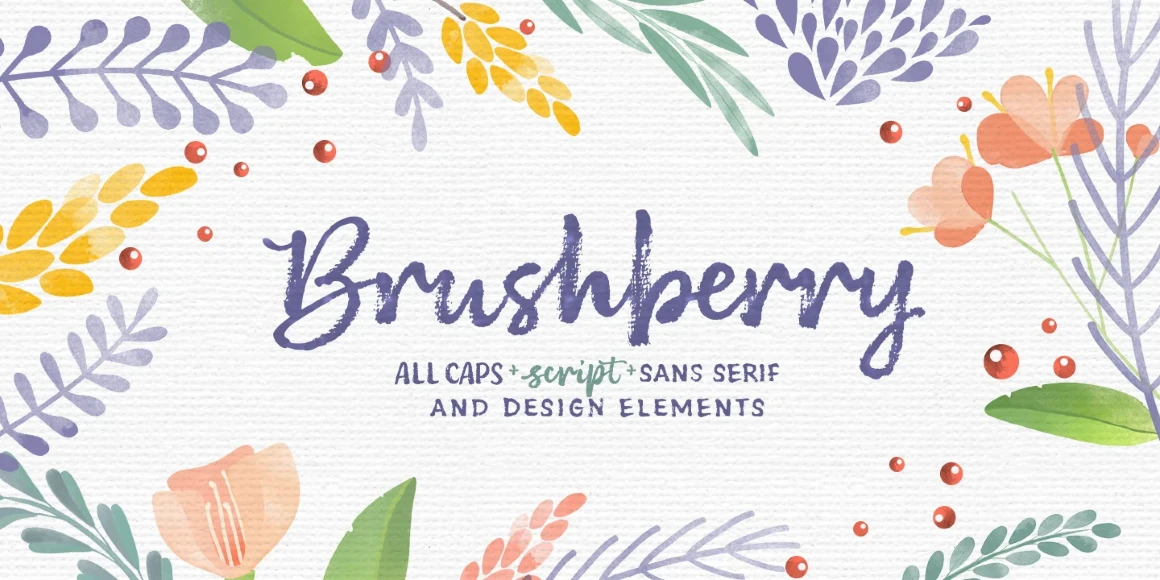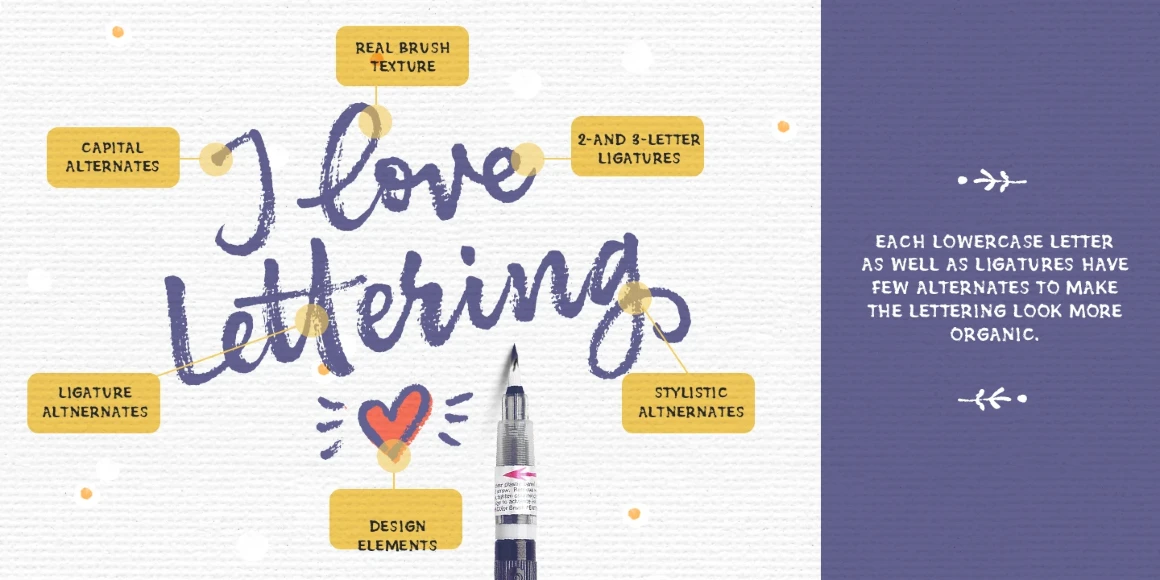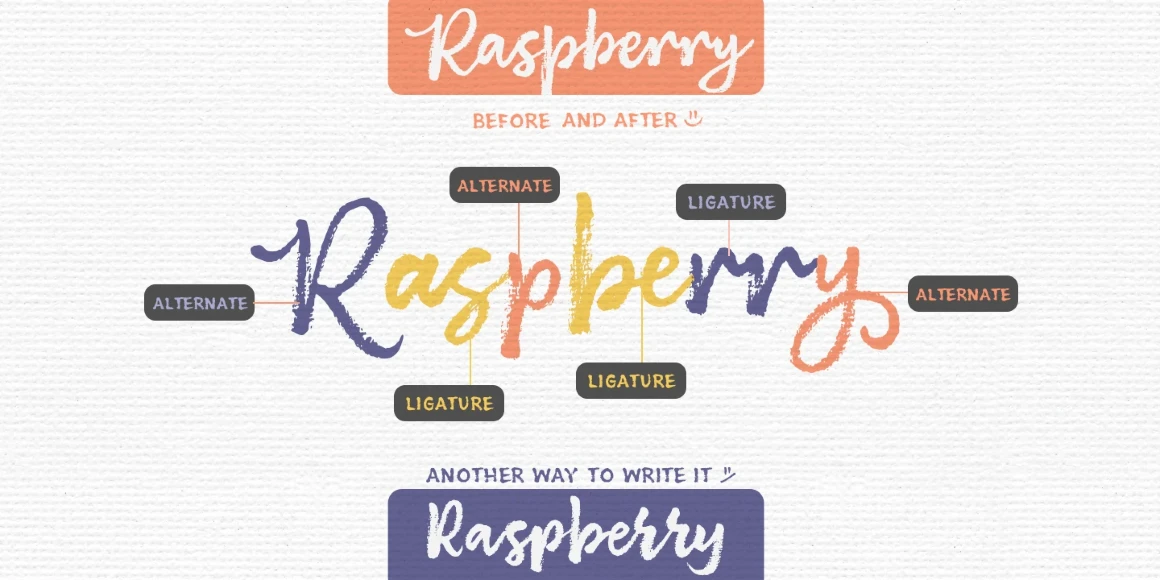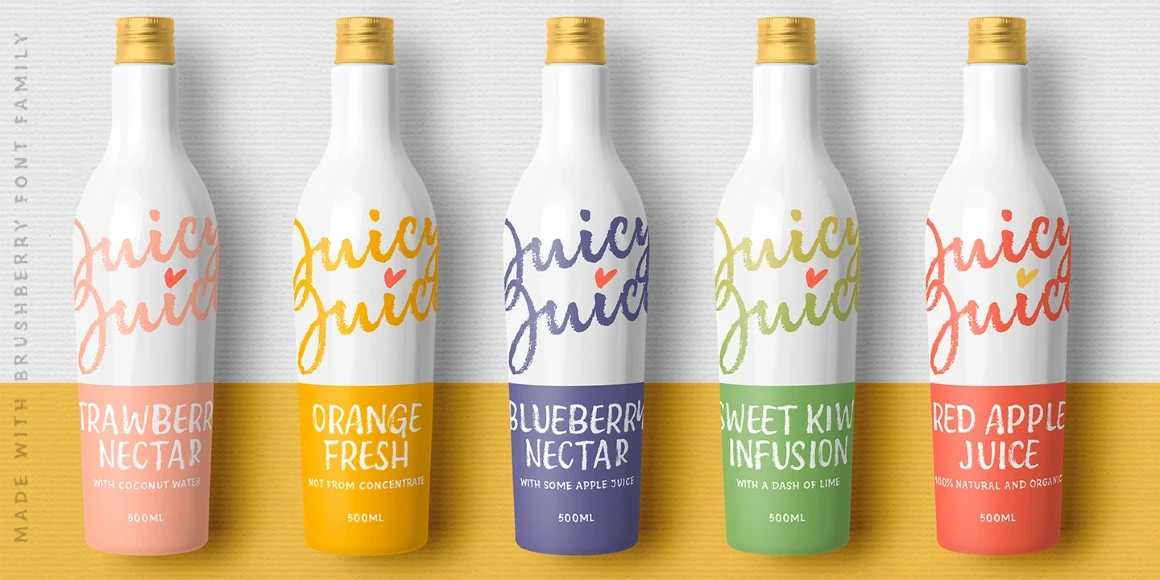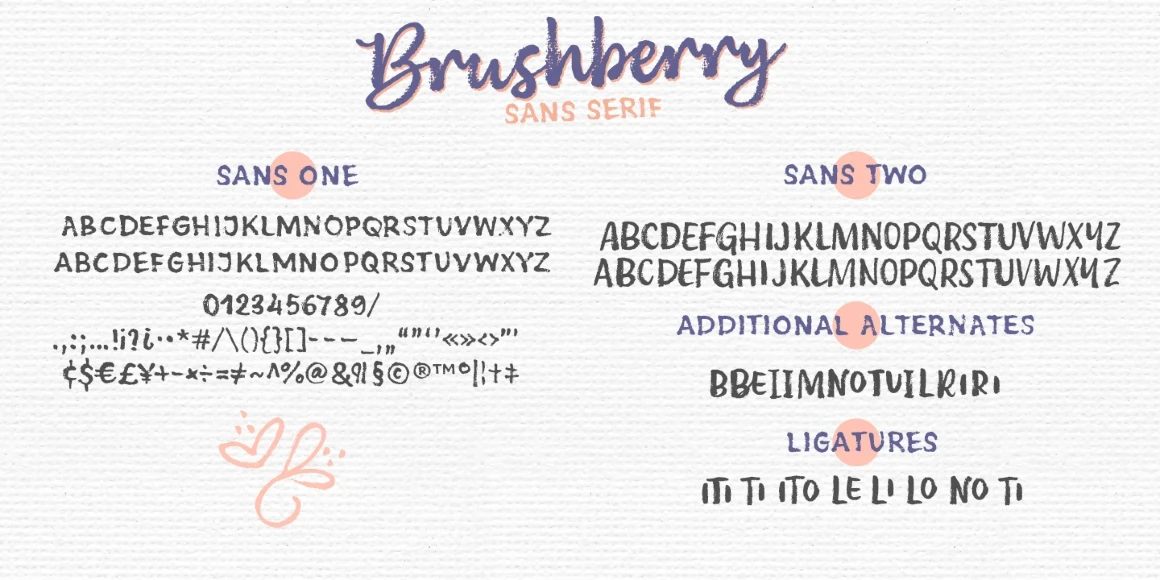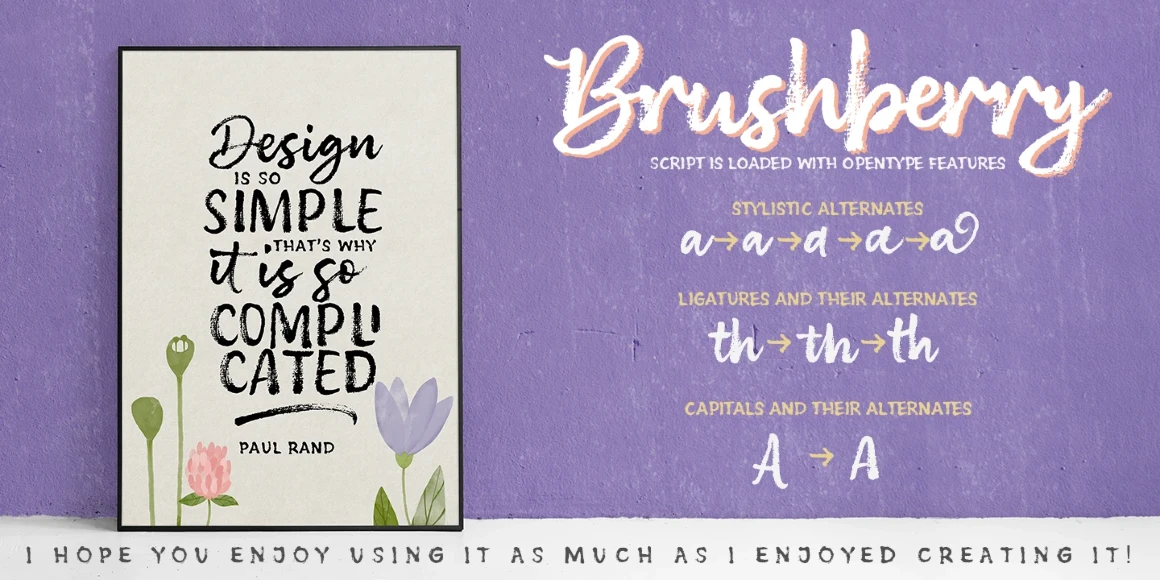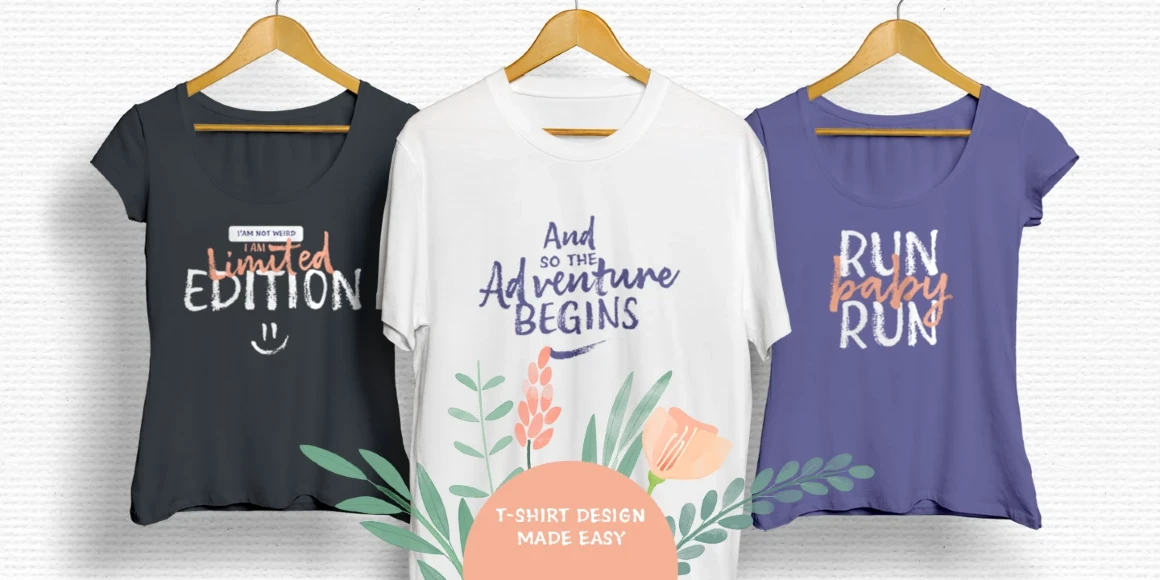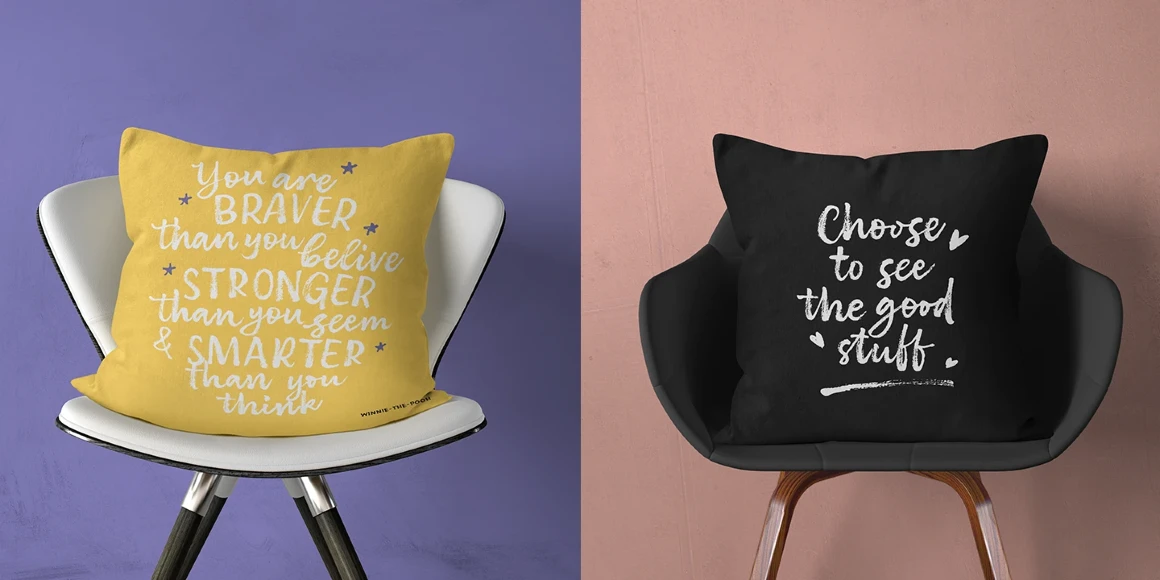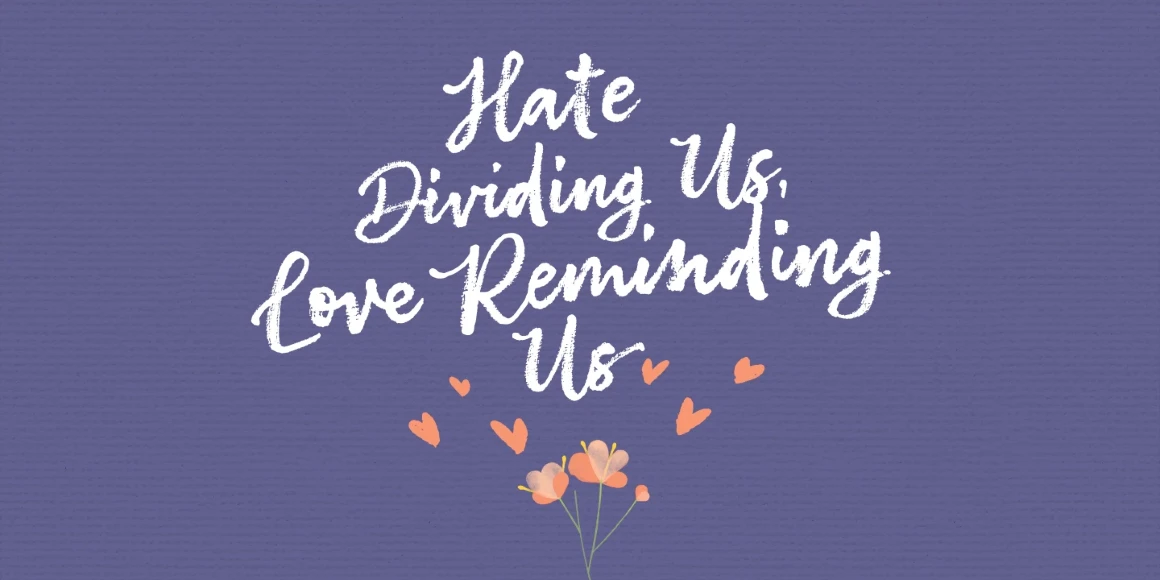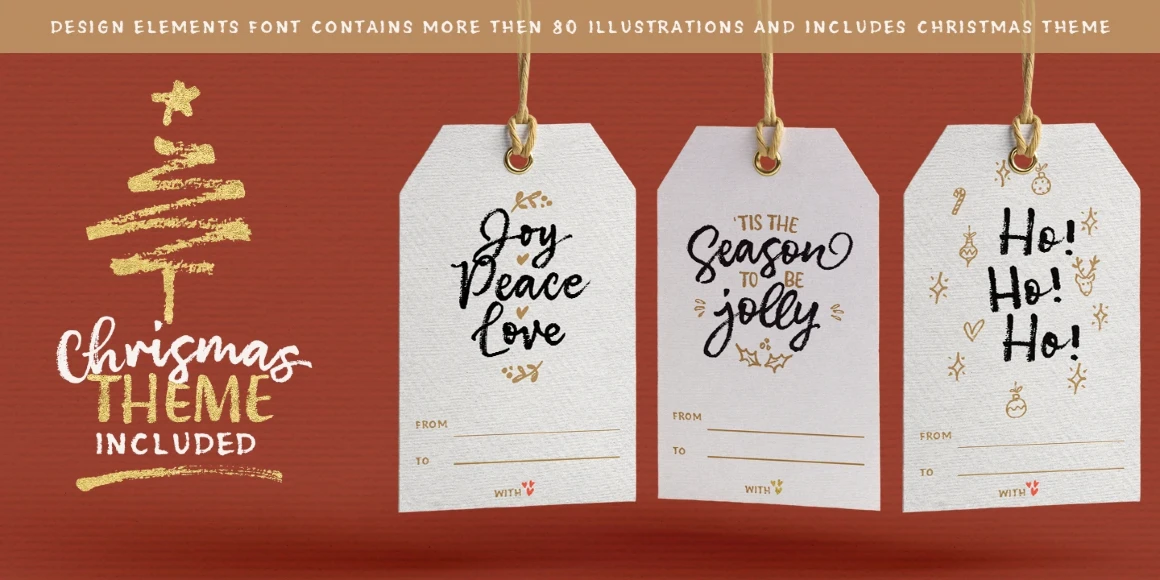
Brushberry
By Elena Genova
Brushberry Designs
Brushberry Script
Brushberry is charged with playful positivity and is loaded with alternates, ligatures, and swirls-n-swashes. It is an ideal companion for greeting cards, t-shirt designs, packaging, and branding. Design Elements includes a variety of Christmas and winter holidays-related elements, too. Hope you enjoy using this hand-lettered font family as much as I enjoyed creating it!